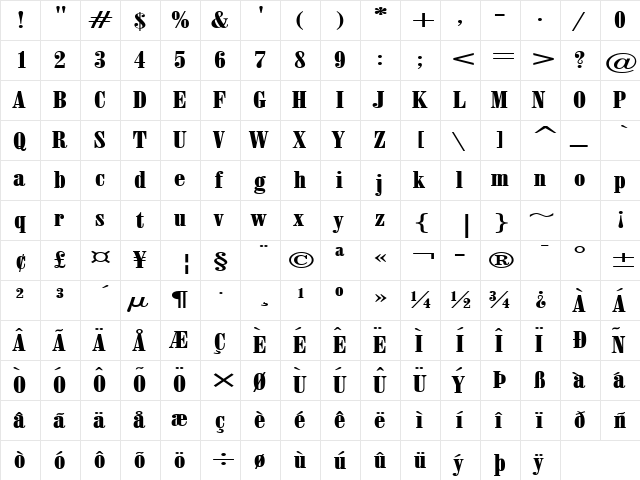
June 15 Extended Bold Font Preview
June 15 Extended Bold
June 15 Extended Bold Font Details
Design Context for June 15 Extended Typeface
June 15 Extended offers clean, dependable letterforms without strong stylistic allegiance, making it a practical choice for designers who need flexibility. The heavy weight commands attention and anchors typographic hierarchies.